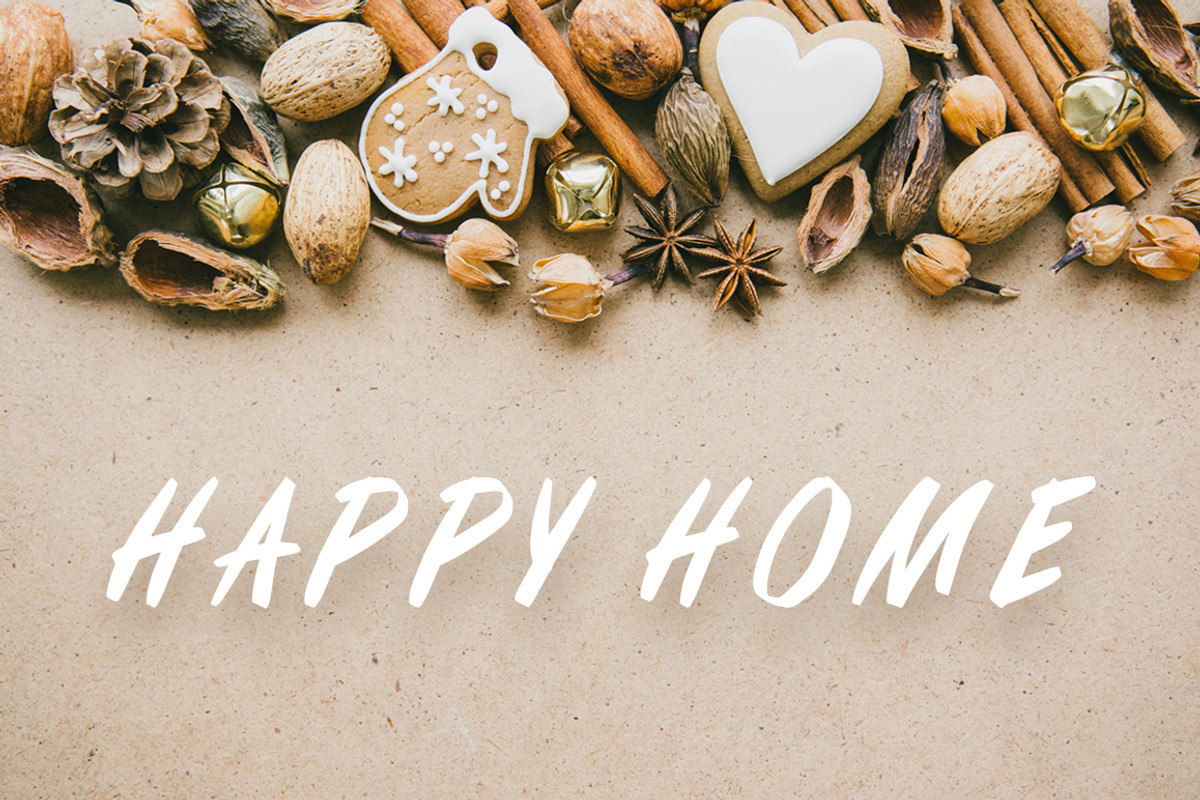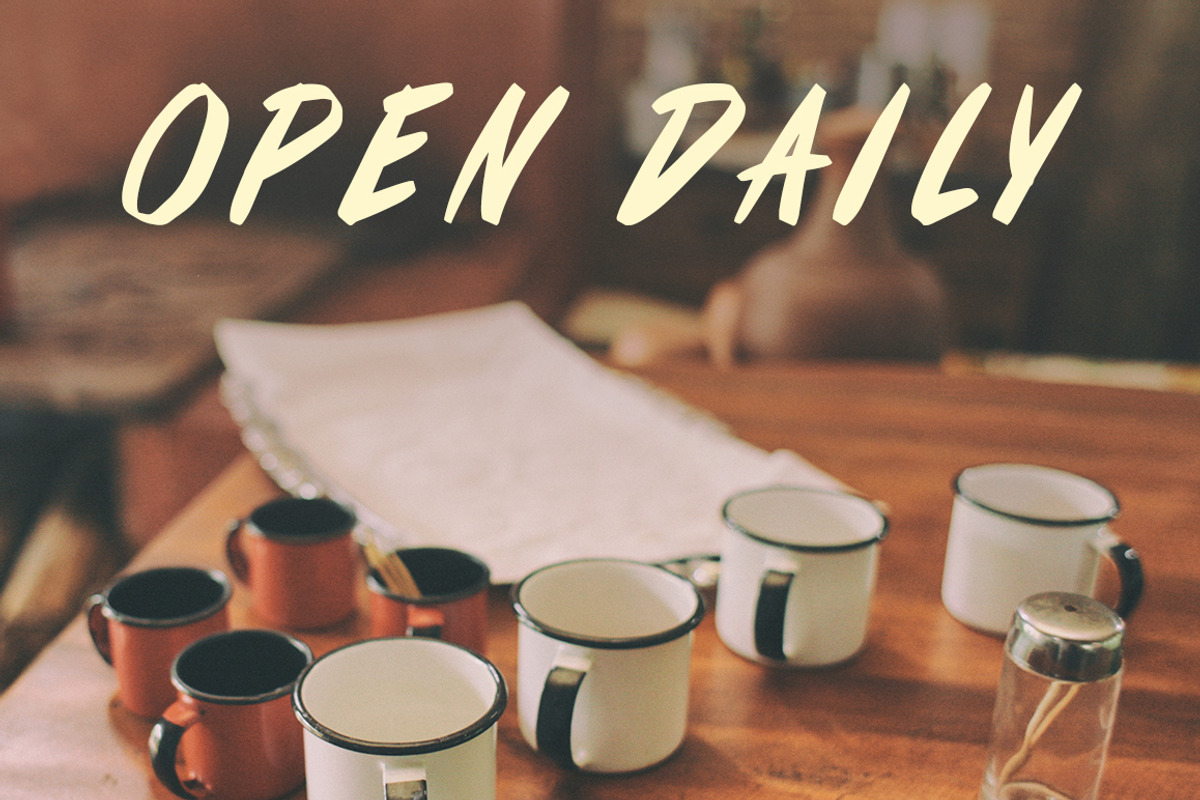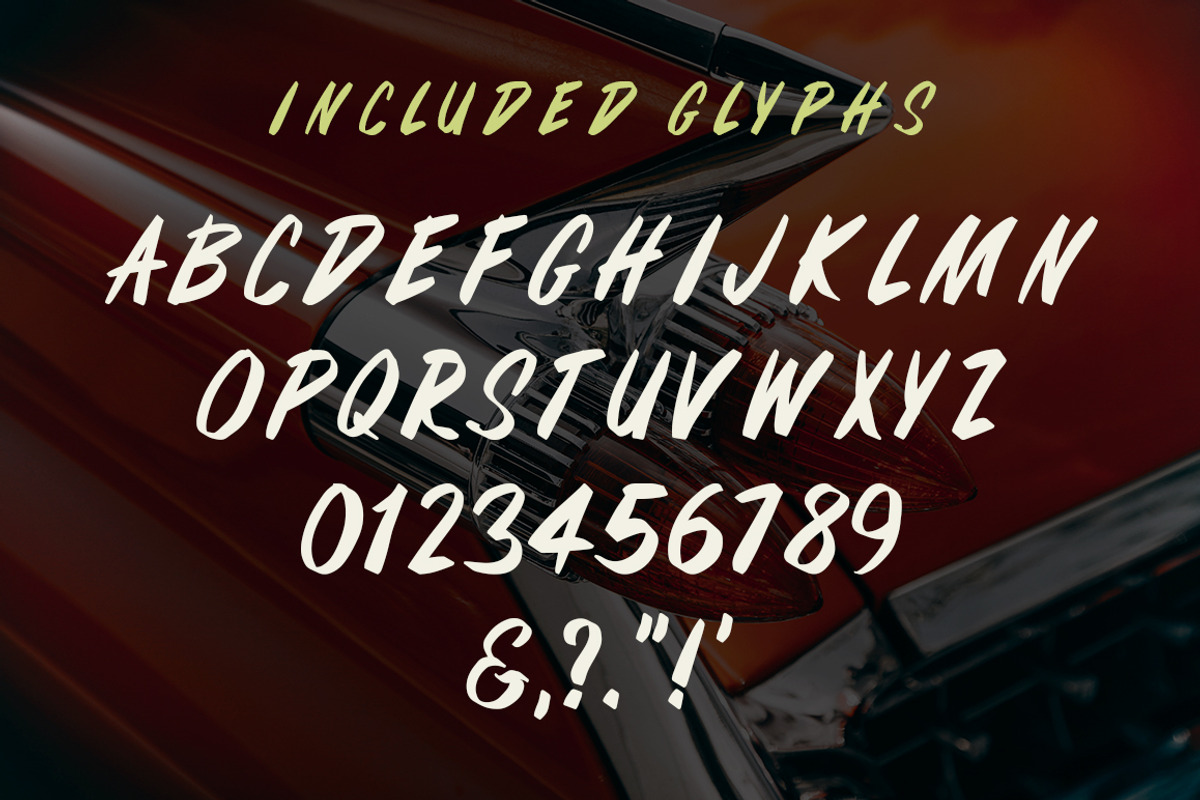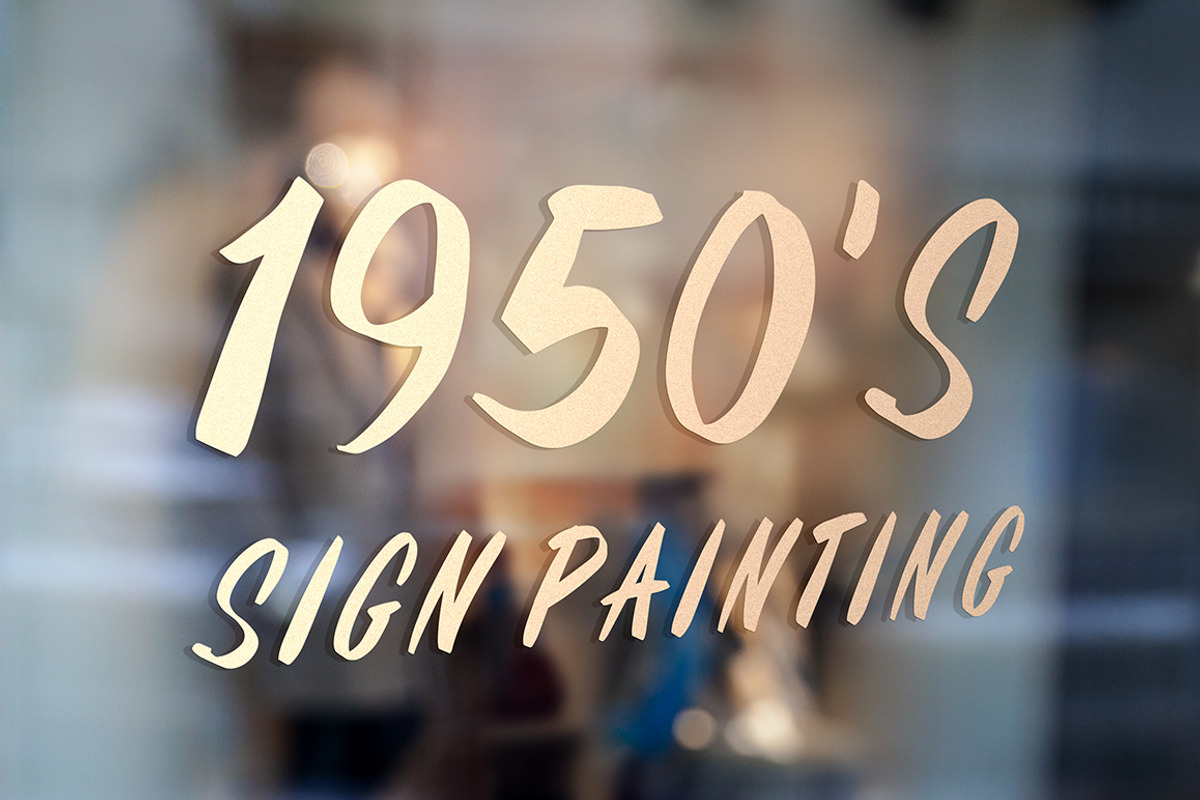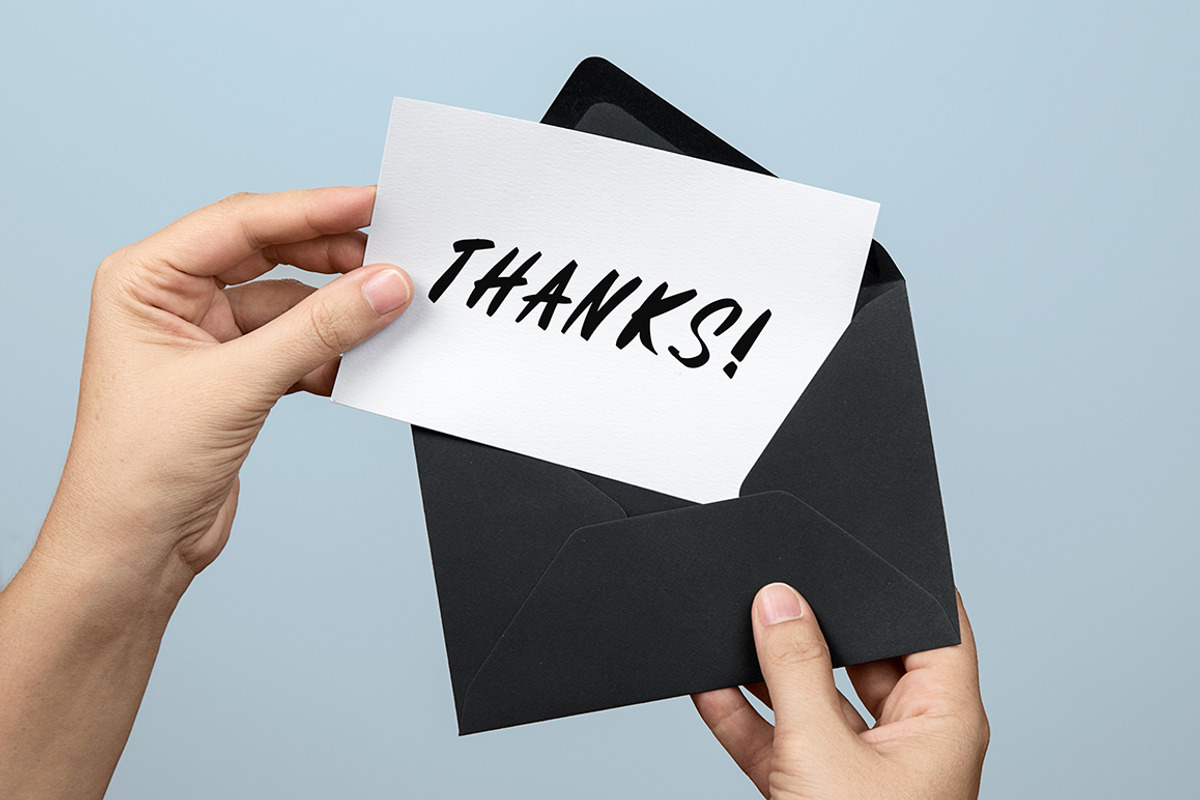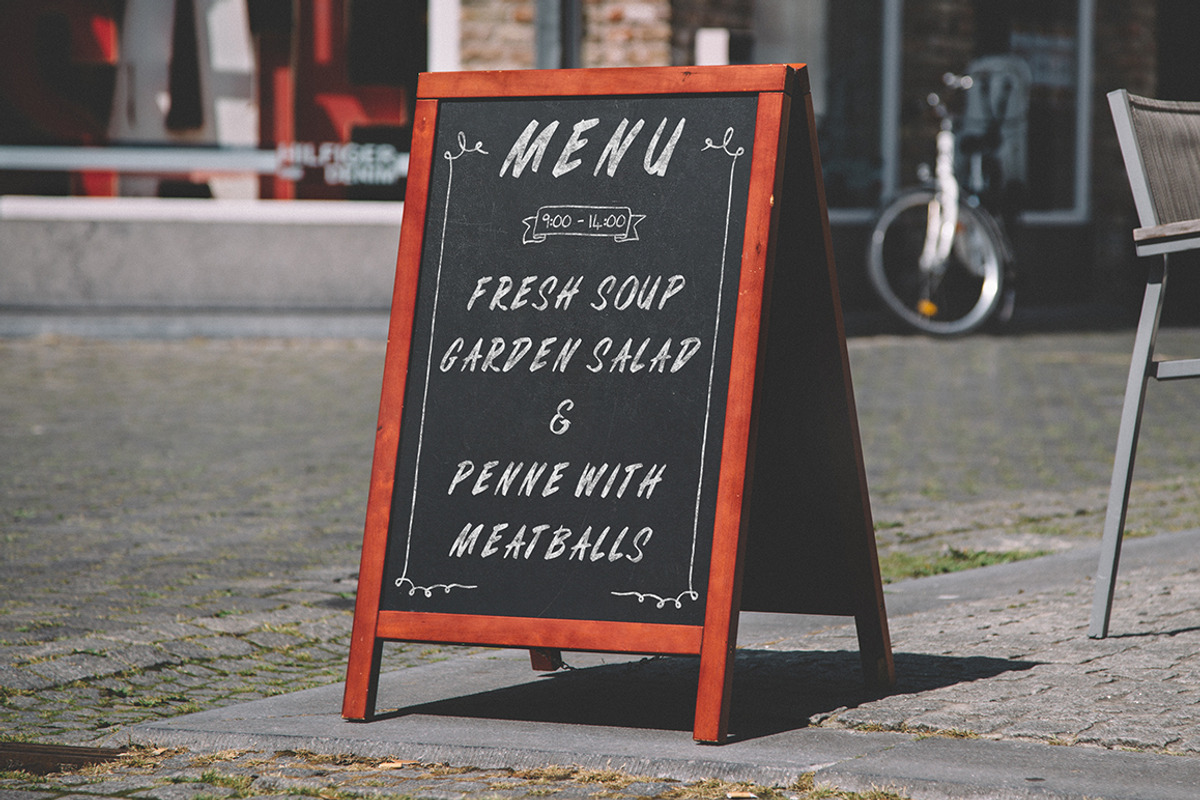
Fifties Paint Brush Font
Fifties Paint Brush Font by Build Interactive is a font selected for branding, posters, packaging, typography.
Why Fifties Paint Brush Font is worth a look
Fifties Paint Brush Font by Build Interactive fits naturally into Branding, posters, packaging, typography.